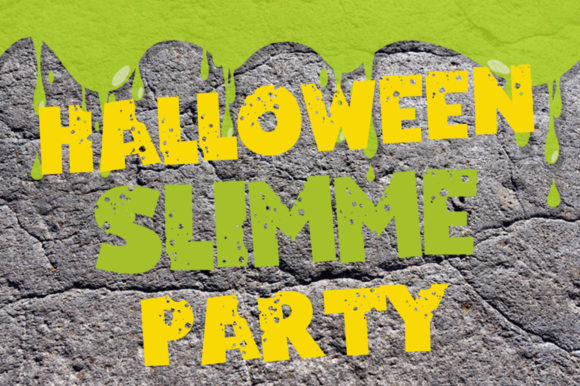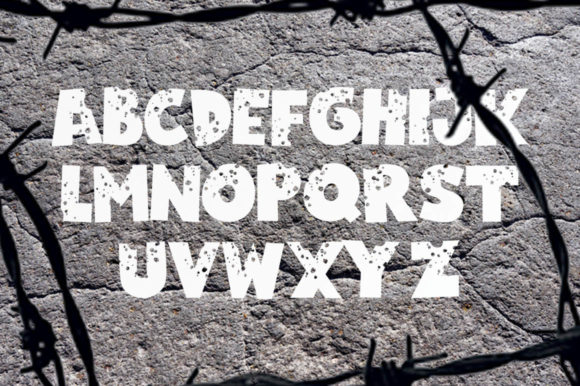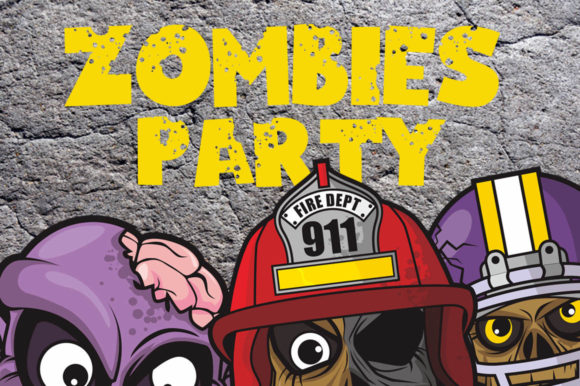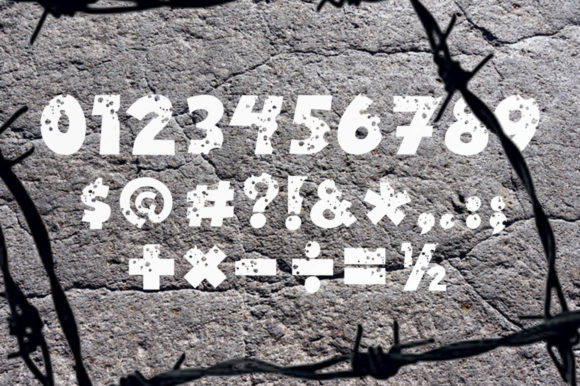
Introduction to Misery Font
Misery is a cool, bold and rough textured display font.
This font is ideal for writing web designs, business cards, or pretty much anything else that requires a unique touch .
Misery Font offers exceptional quality and versatility, making it a valuable addition to your design toolkit. Whether you’re creating for personal projects or commercial use, Misery Font delivers professional results.